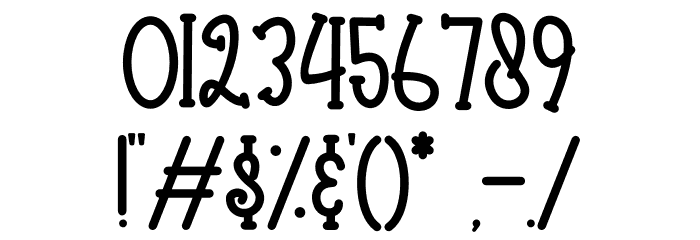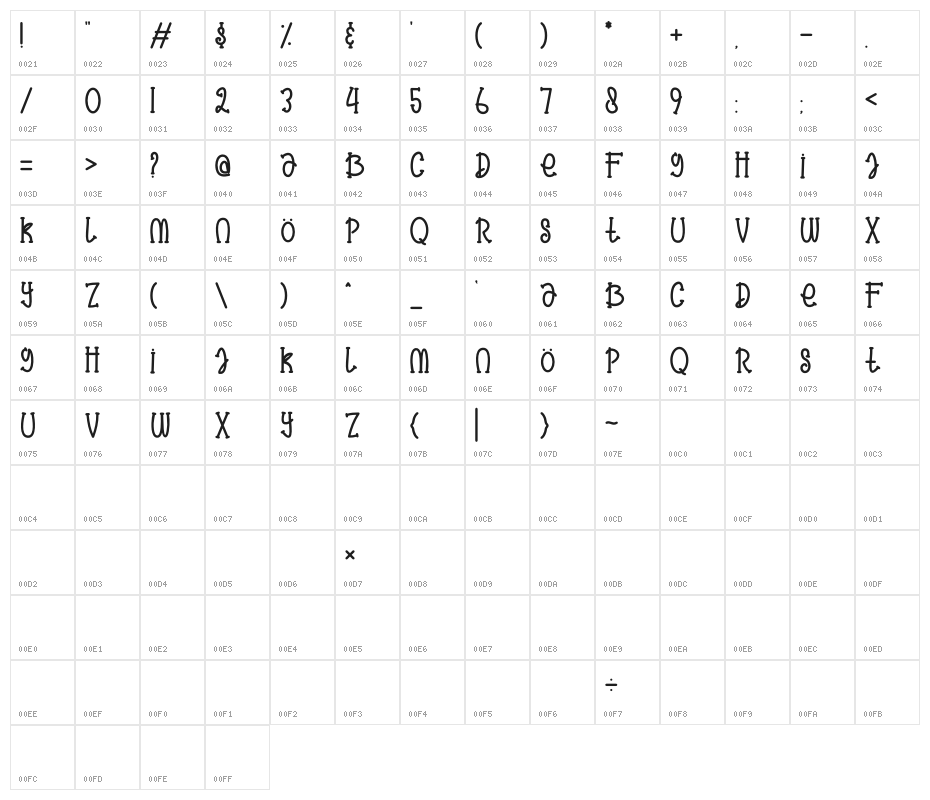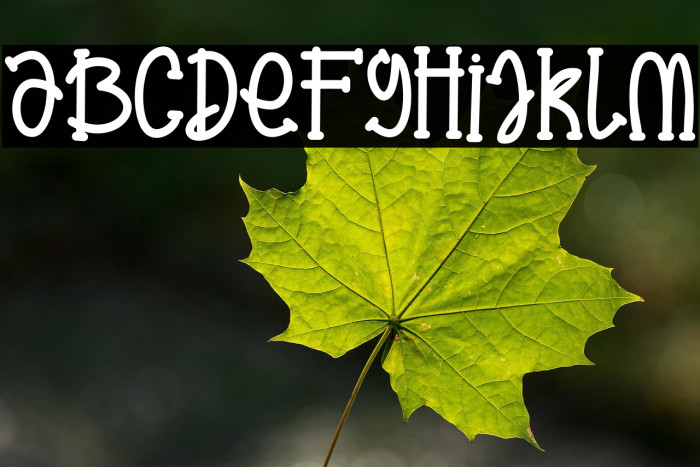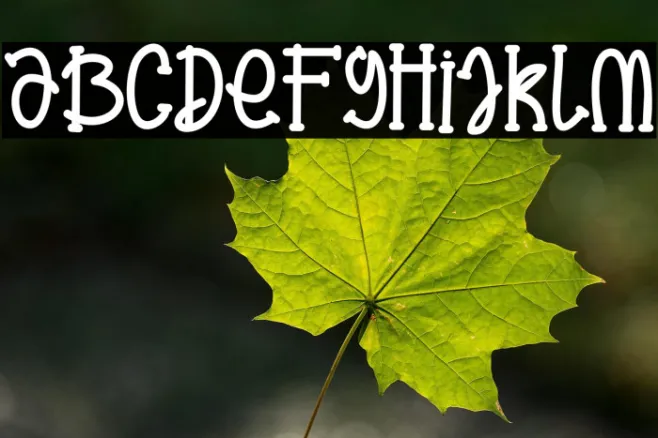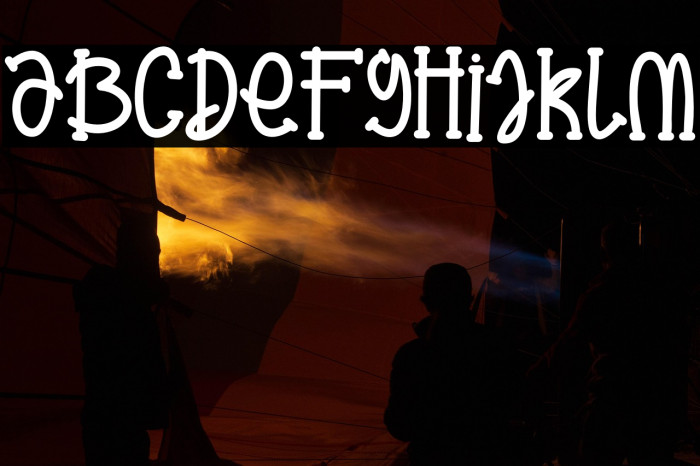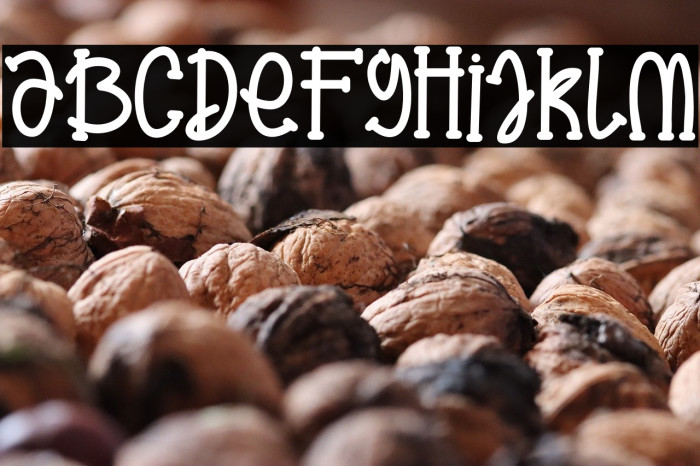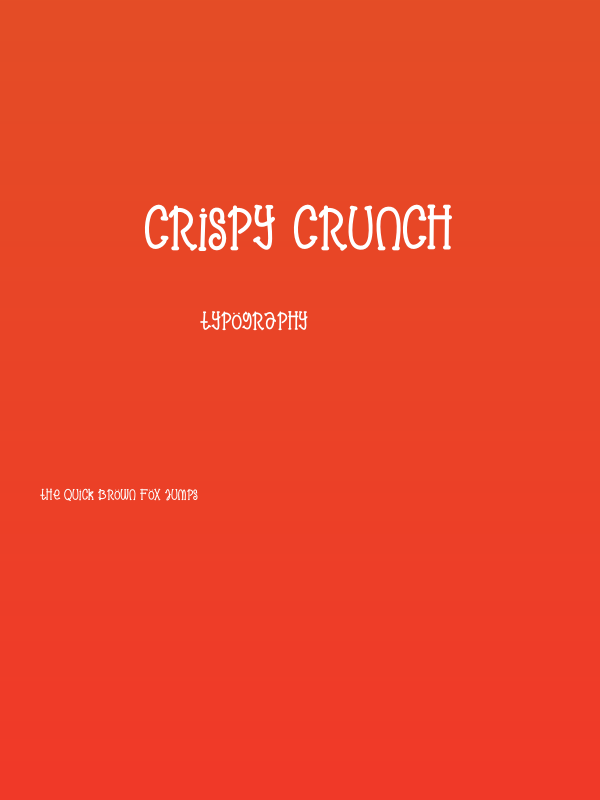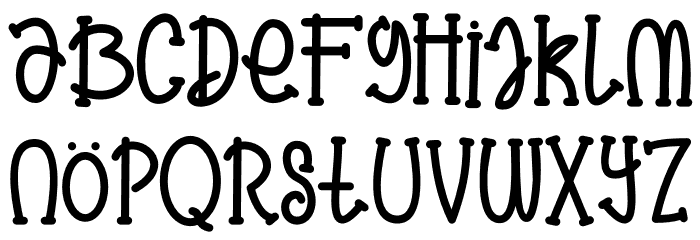
Crispy Crunch Font
Crispy Crunch Description
This font features a playful and whimsical design with a unique blend of rounded and angular elements. The characters are bold and have a distinct hand-drawn quality, giving them a lively and energetic appearance. Each letter is adorned with small decorative strokes, adding to its charm and making it stand out. The font maintains a consistent weight throughout, ensuring readability while still offering a creative flair. Its quirky style is perfect for projects that require a fun and informal touch, such as children's books, playful branding, or creative posters. The numbers and special characters follow the same design principles, ensuring a cohesive look across all text elements.
| Overall Style | Whimsical |
| Proposed Projects | Ideal for children's books, playful branding, creative posters, and informal invitations. |